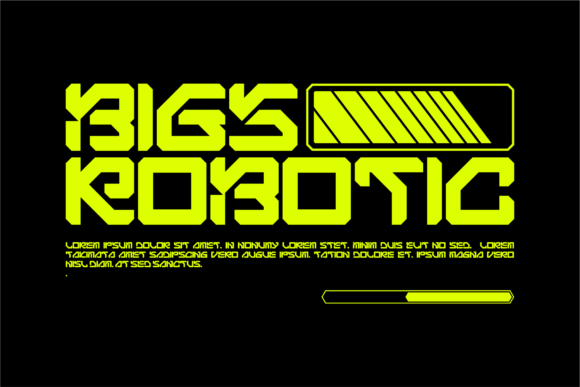
Step into the future with Bigs Robotic Font, a display font that exudes a striking fusion of futuristic and robotic aesthetics. Embark on a typographic journey where geometric shapes, crisp straight lines, and captivating zigzags converge to create an ultra-modern and stunning visual experience.
Designed with precision and creativity, Bigs Robotic Font captivates with its sharp edges and dynamic flow. Each character radiates a unique personality, adding a touch of intrigue and innovation to your designs. Unleash your creativity and watch as your words transform into captivating expressions of the digital age.
Immerse yourself in the world of digital art and design with the power of Bigs Robotic Font. Create eye-catching logos that leave a lasting impression, craft stunning posters that transport viewers to futuristic realms, or design sleek and stylish websites that reflect the cutting-edge spirit of the 21st century.
With its versatility and adaptability, Bigs Robotic Font seamlessly integrates into a wide range of projects. Elevate your social media posts, elevate your branding materials, or craft compelling digital content that captivates audiences. The possibilities are limitless, allowing you to explore the depths of your imagination and create designs that resonate with the modern world.
Don't let your creativity be confined to the ordinary. Embrace the extraordinary with Bigs Robotic Font and unlock a new dimension of typographic expression. Experience the thrill of innovation and leave an indelible mark on the digital landscape.